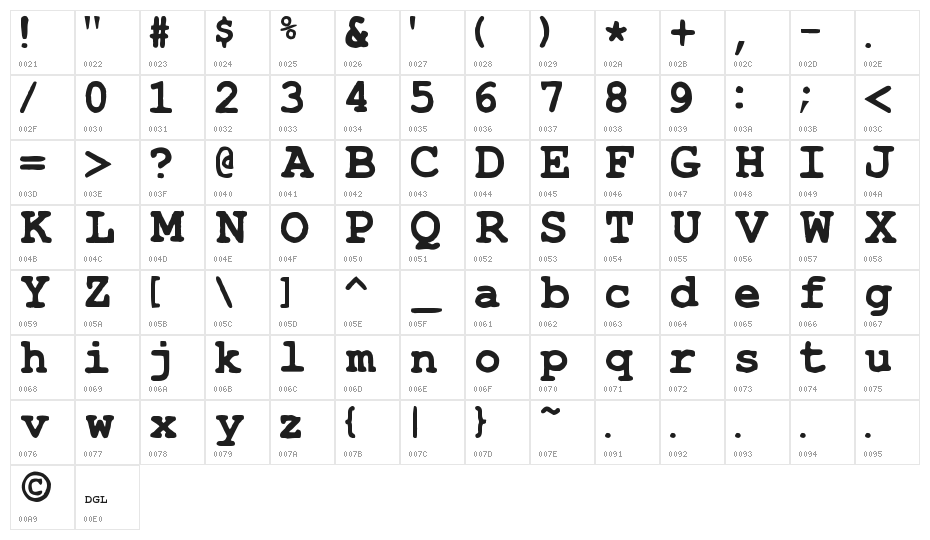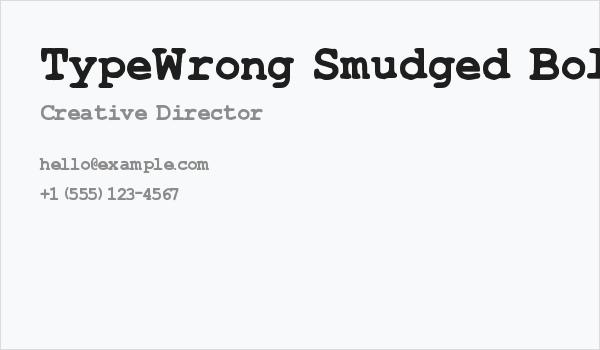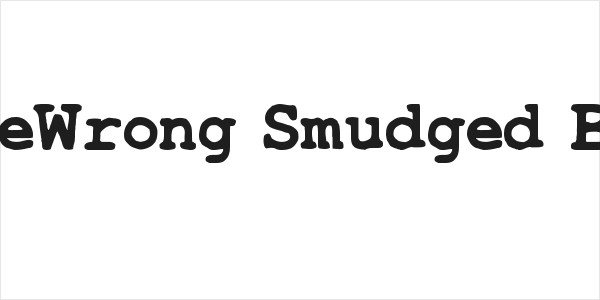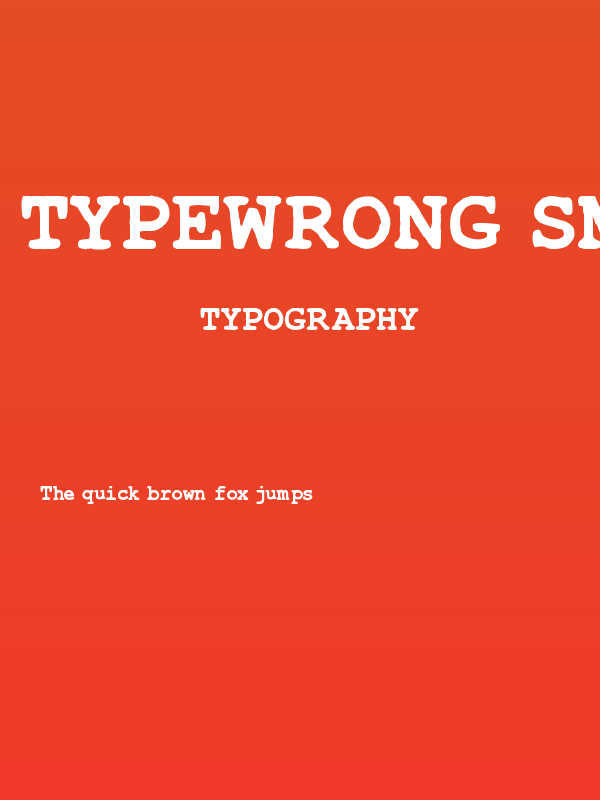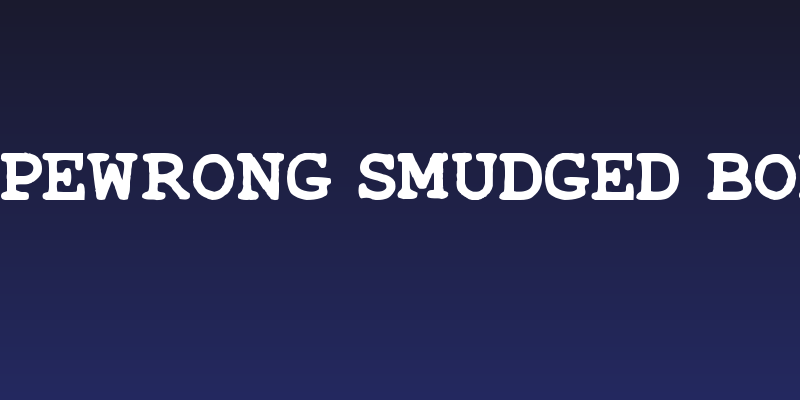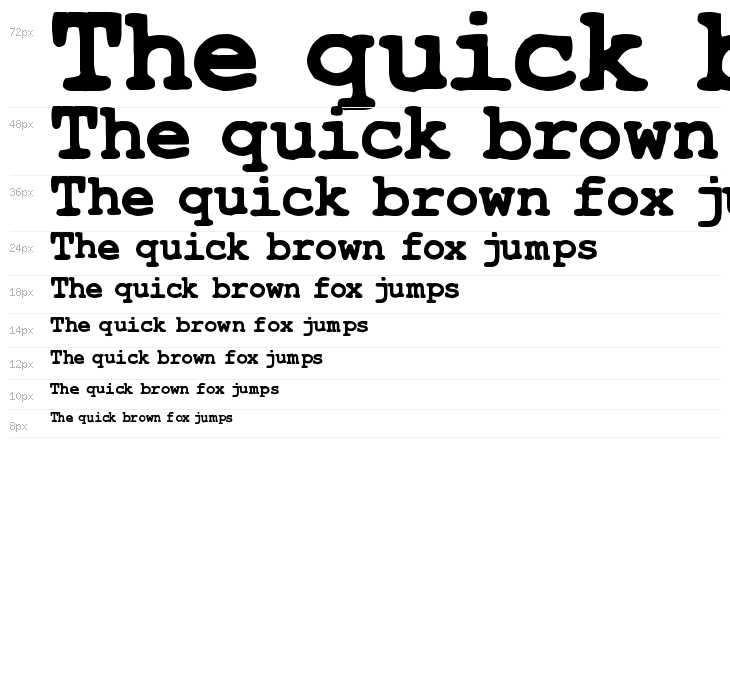
TypeWrong Smudged Bold Font
TypeWrong Smudged Bold Description
This font features a bold and smudged appearance, giving it a unique and slightly distressed look. The characters are thick and rounded, with a playful and informal style. The smudging effect adds a textured, hand-crafted feel, making it stand out in any design. The uppercase and lowercase letters maintain consistent proportions, while the numerals and special characters are designed to complement the overall aesthetic. This font is ideal for projects that require a bold statement with a touch of creativity and individuality.
| Proposed Projects | Perfect for posters, creative branding, children's books, and artistic projects. |